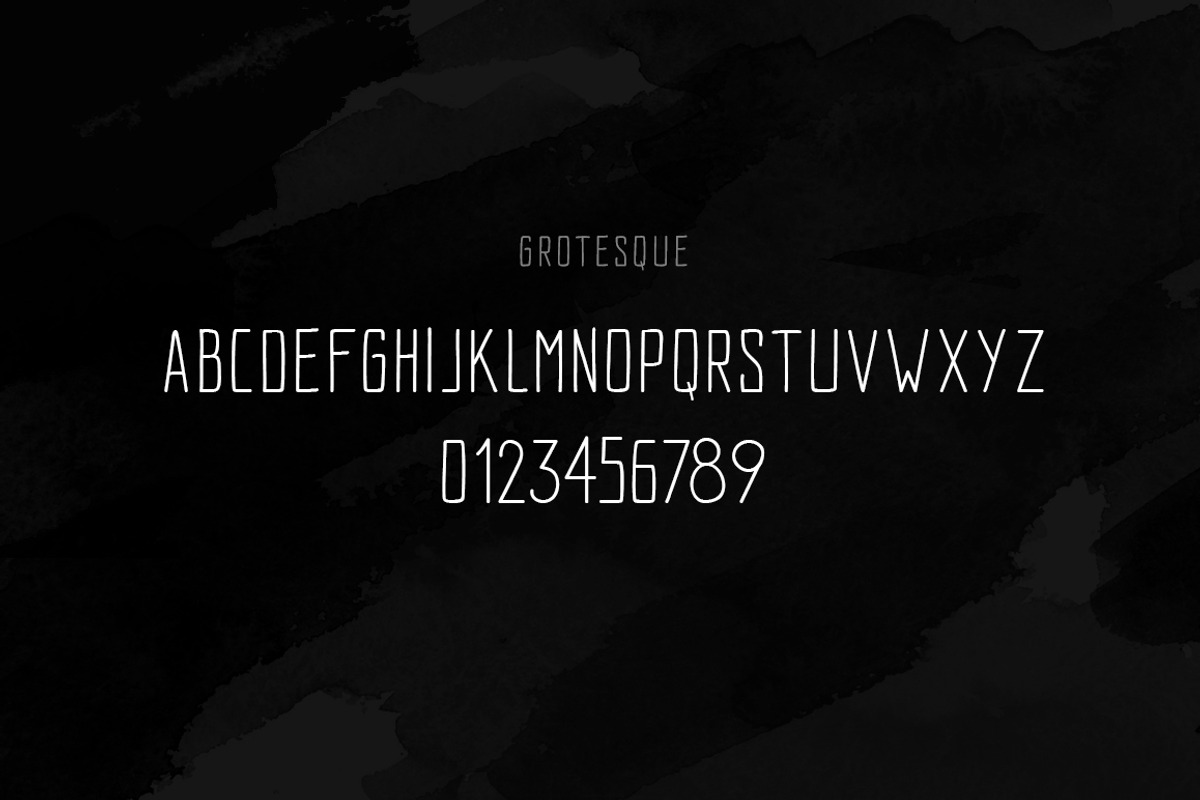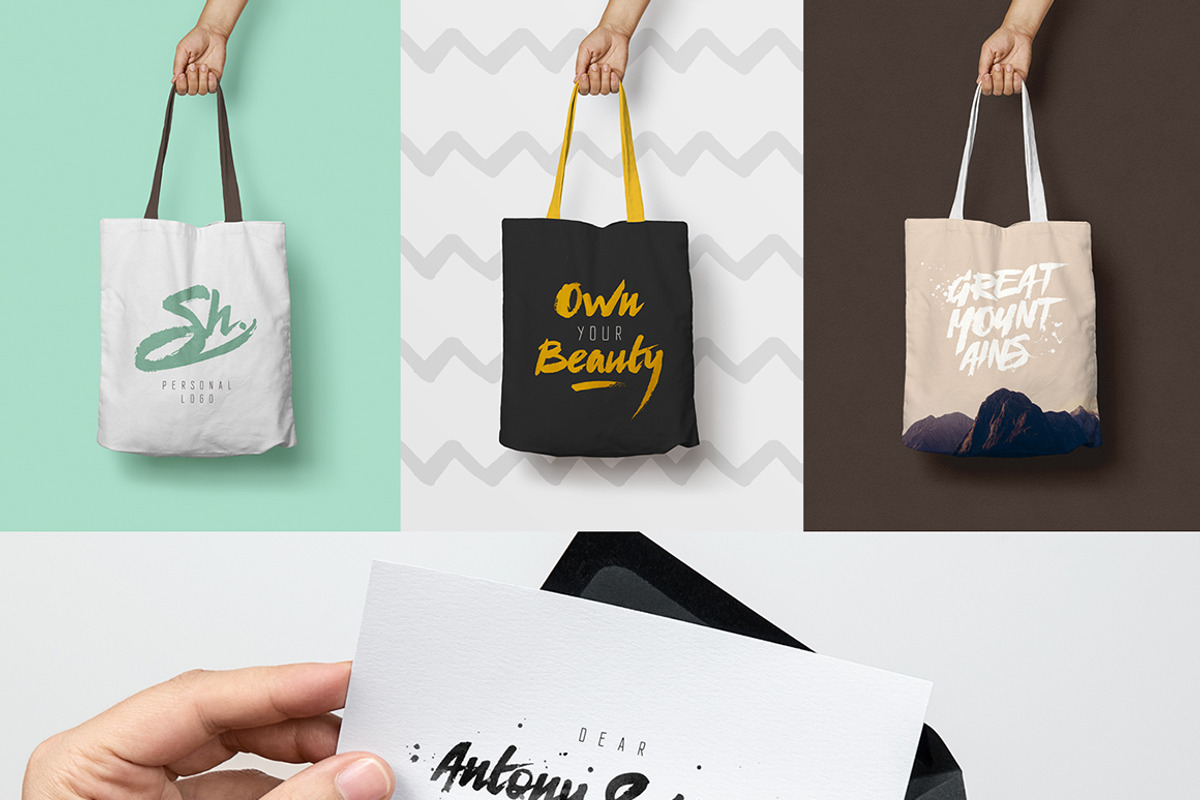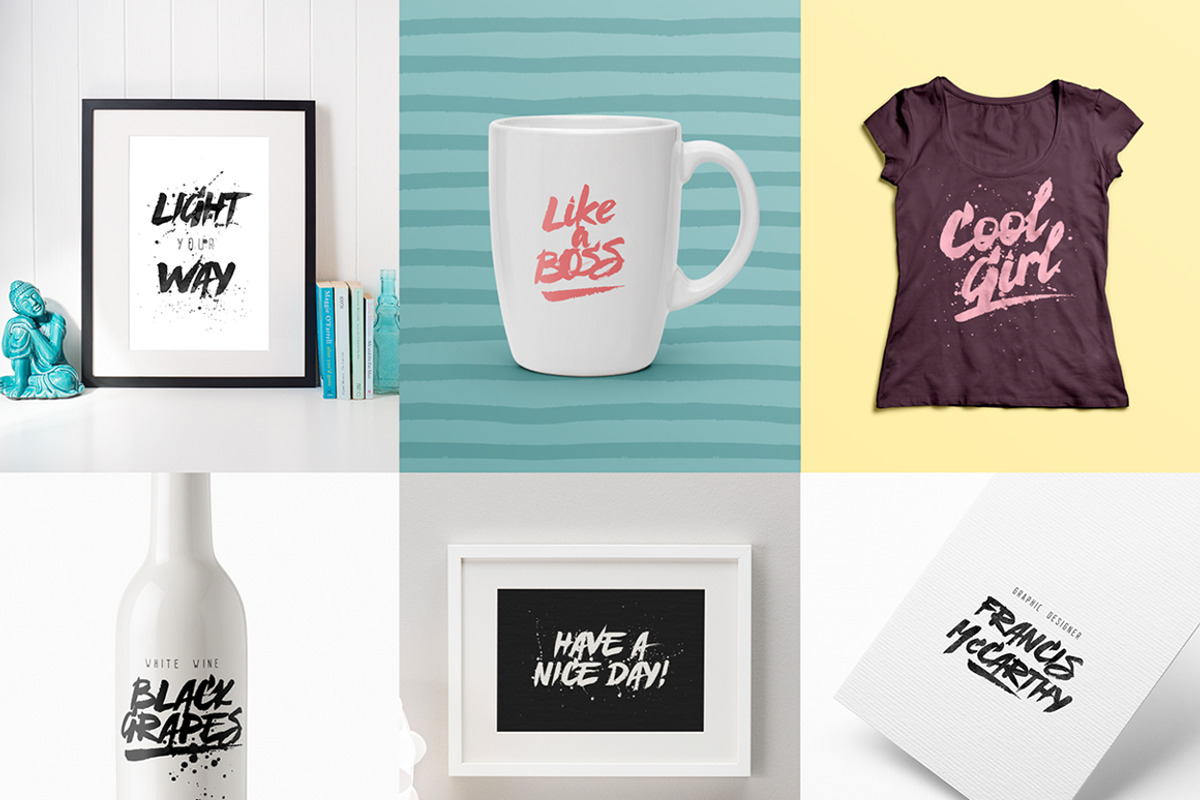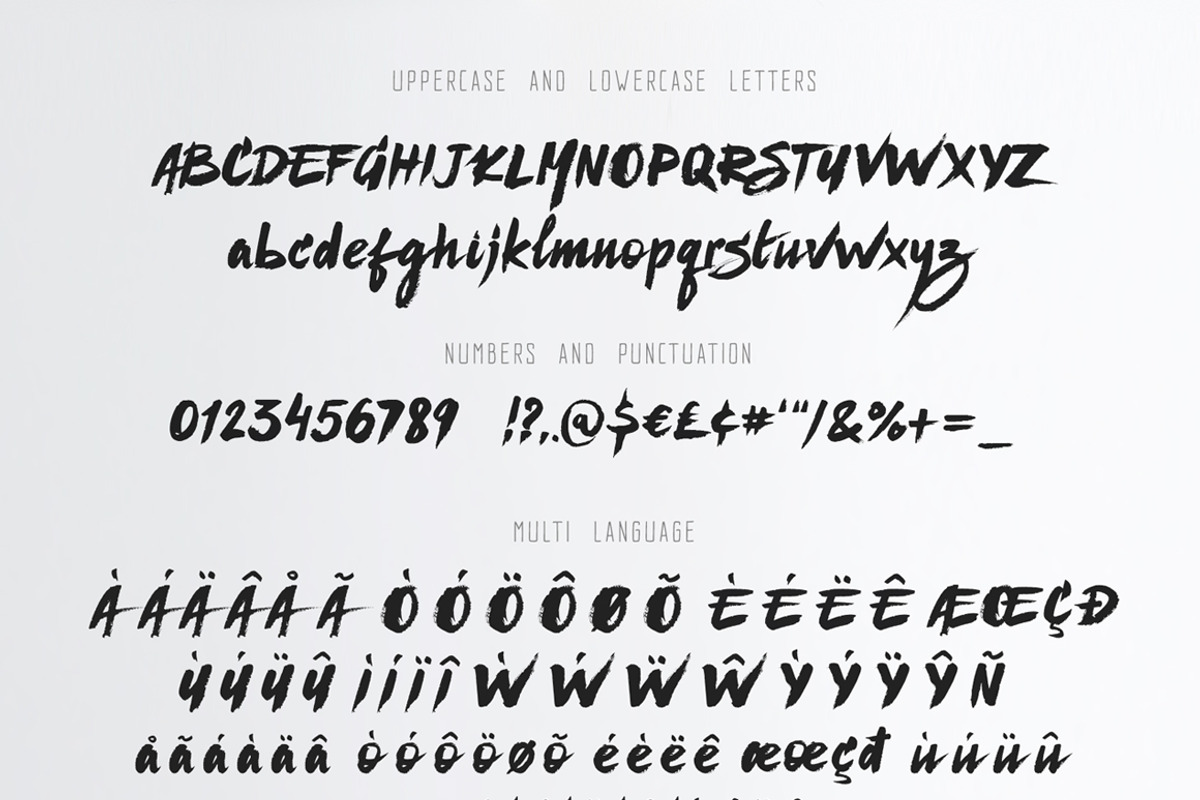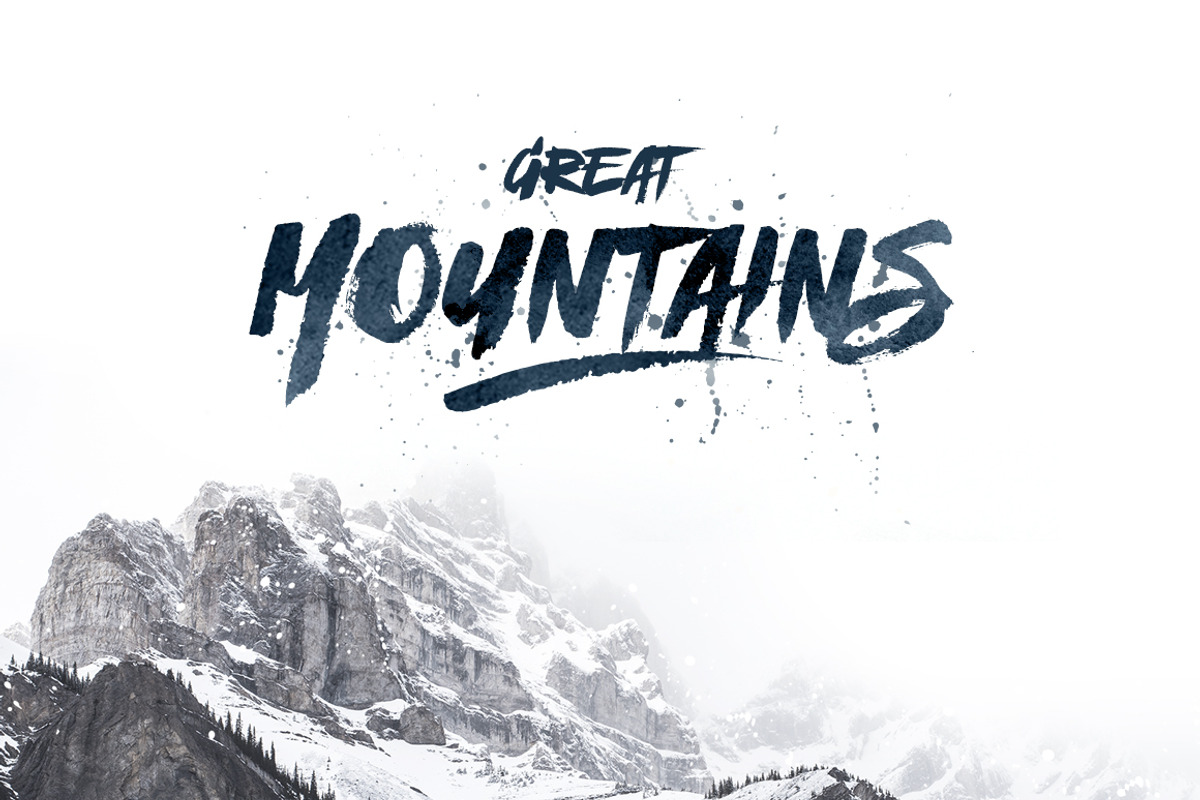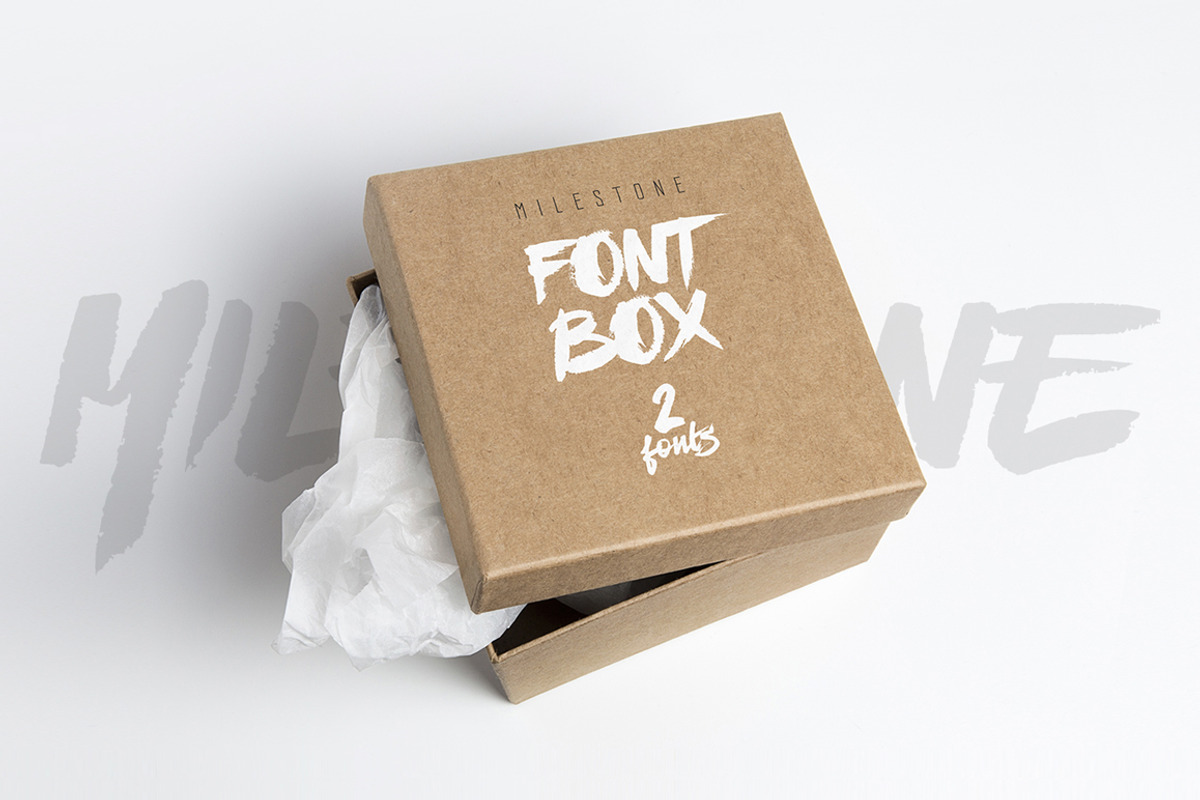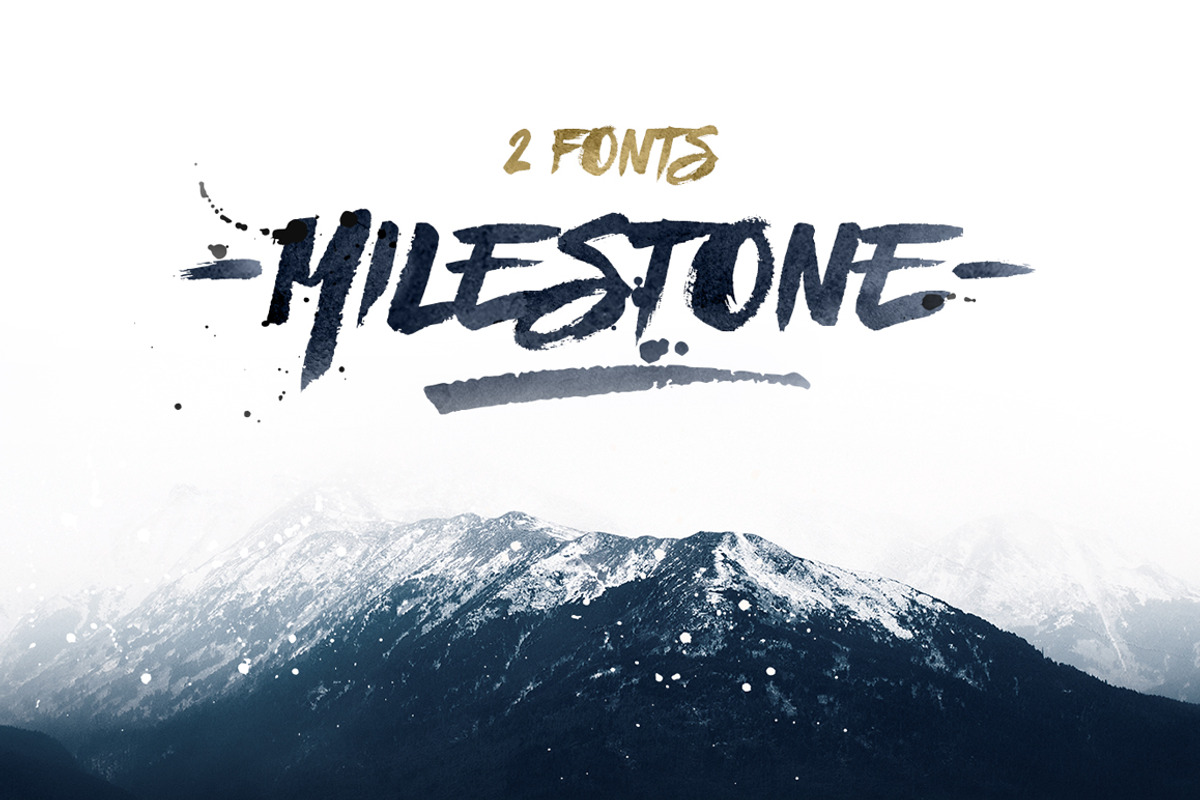
Milestone Fonts
Milestone comes with a full set of upper and lower case characters - giving you the extra freedom to turn your text into authentic custom-made hand lettering.
Milestone font Includes a large range of glyphs including numerals, punctuation & multilingual support. Also included is a bonus extras font, which consists of 26 swashes designed to perfectly compliment your primary text. I've also added a Milestone Grotesque additional font which is the perfect companion when used as a supporting text for Milestone font.